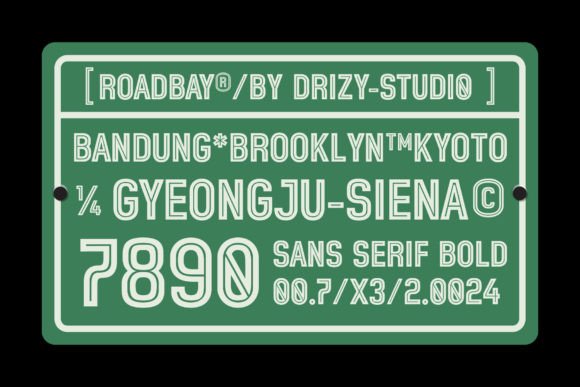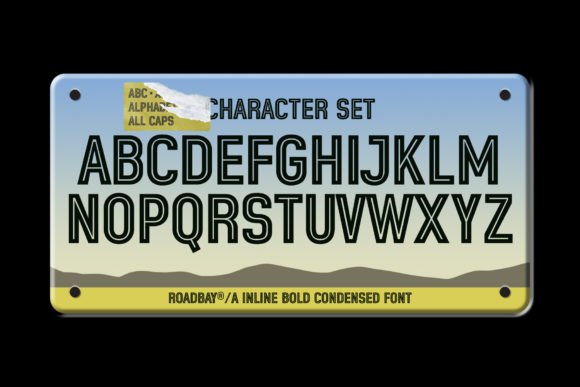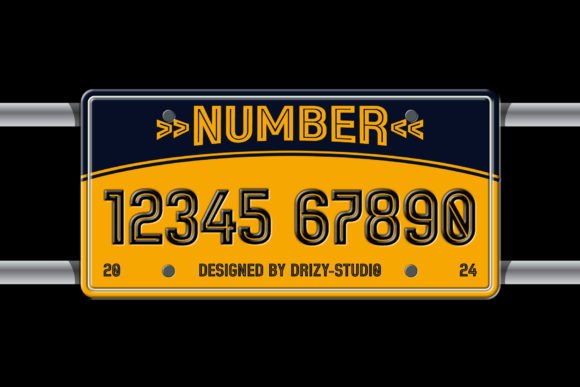
Roadbay Inline Bold Condensed Font
Introducing Roadbay Inline Bold Condensed: the font that will redefine your designs with its sleek, bold, and dynamic character. Perfectly crafted for those who are unafraid to make a statement, Roadbay Inline Bold Condensed embodies modernity and efficiency, offering a blend of sophistication and readability that’s hard to find.